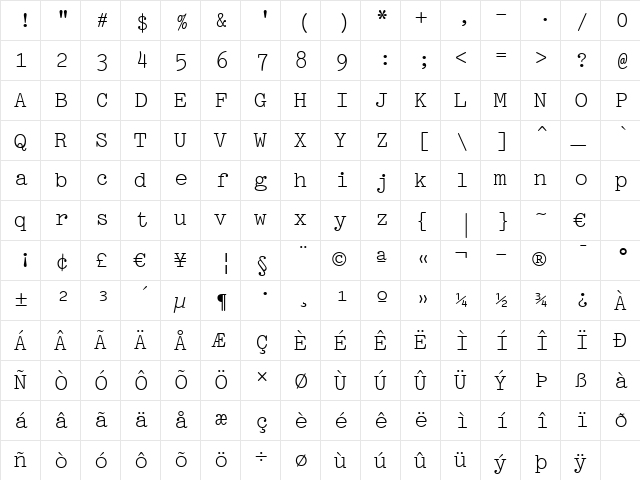
Pica10 BT Roman
Design Context for Pica10 BT Typeface
Pica10 BT takes a measured approach to typography — its balanced proportions and neutral character make it a reliable workhorse for both digital and print work.